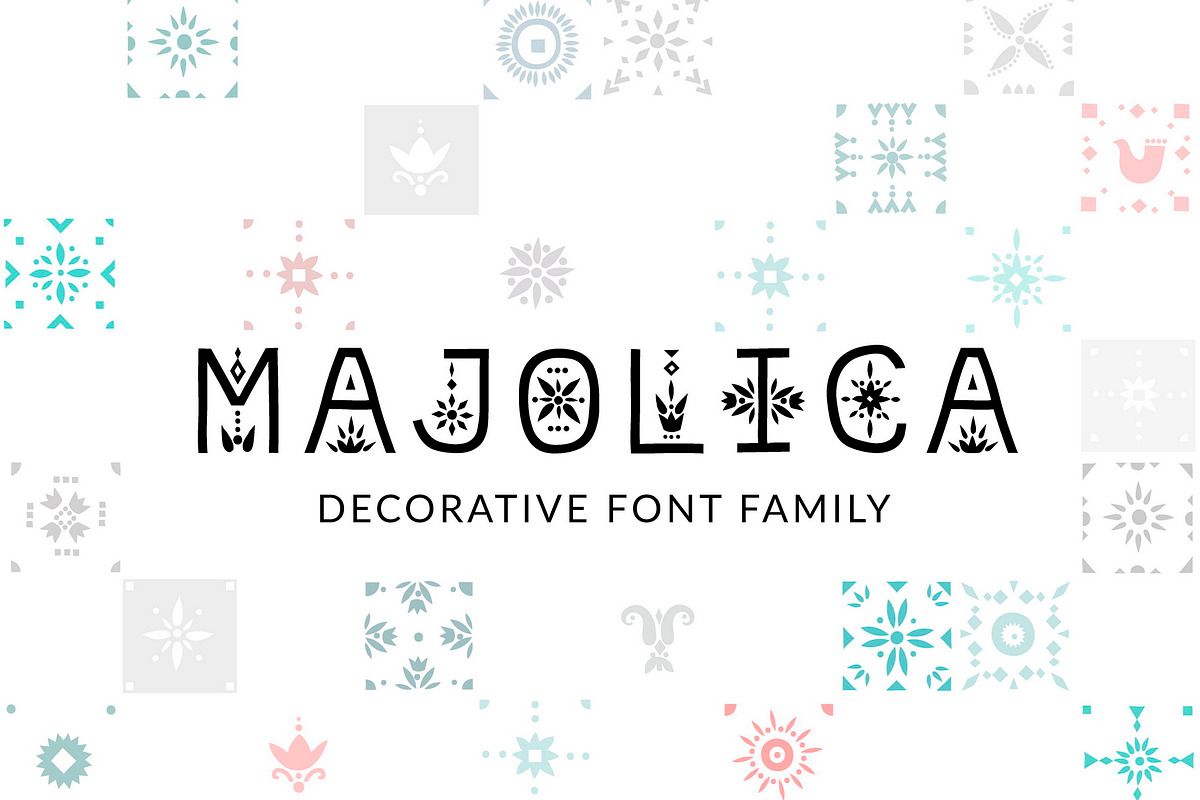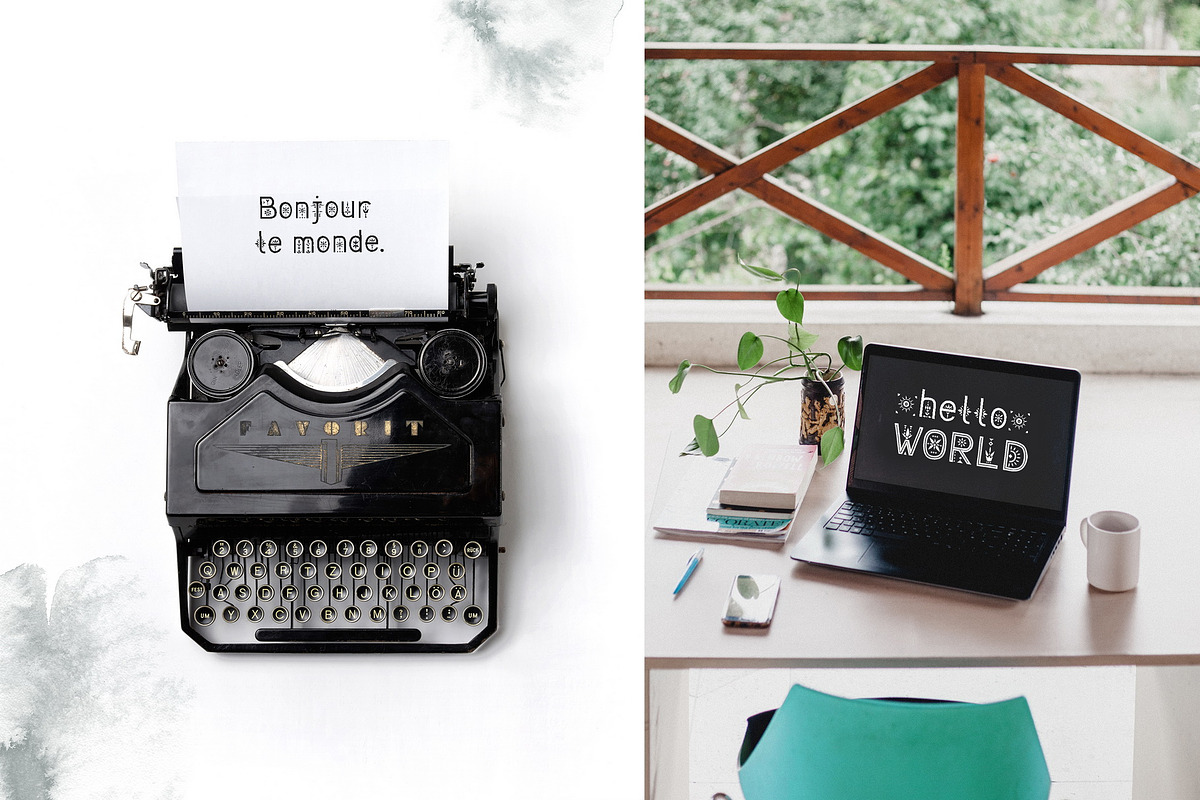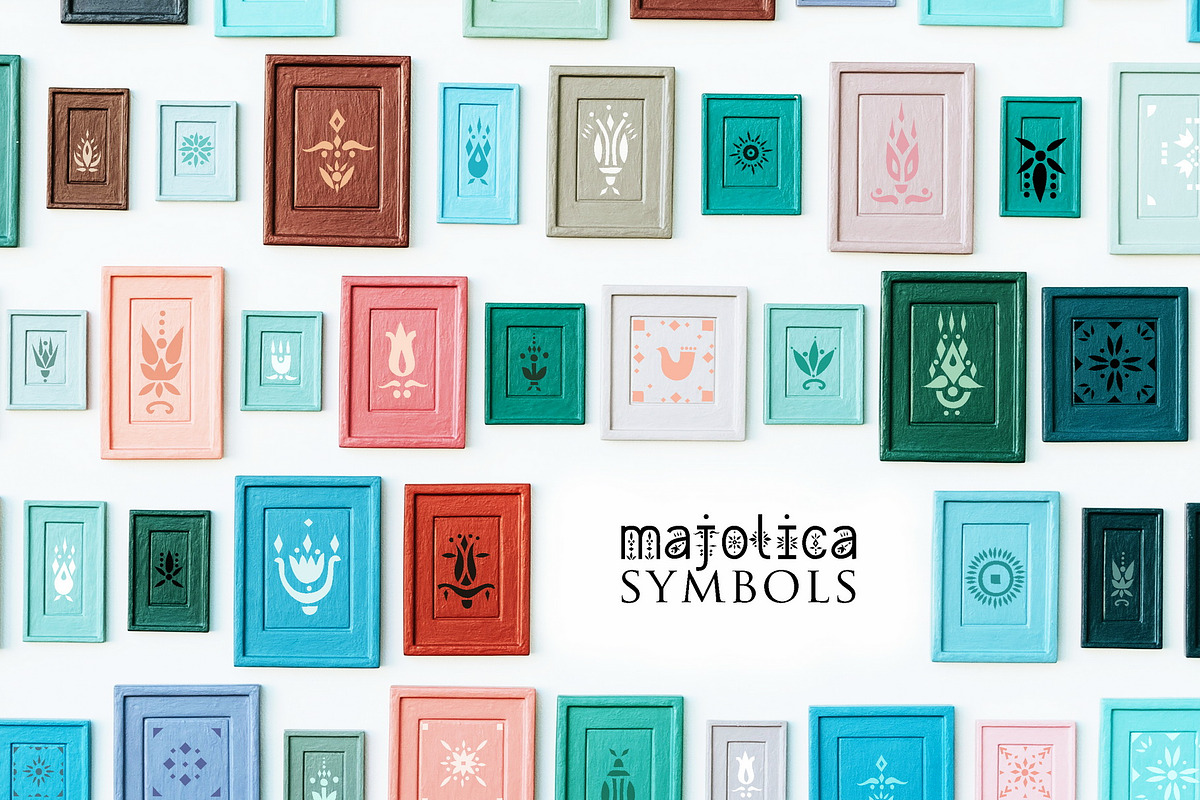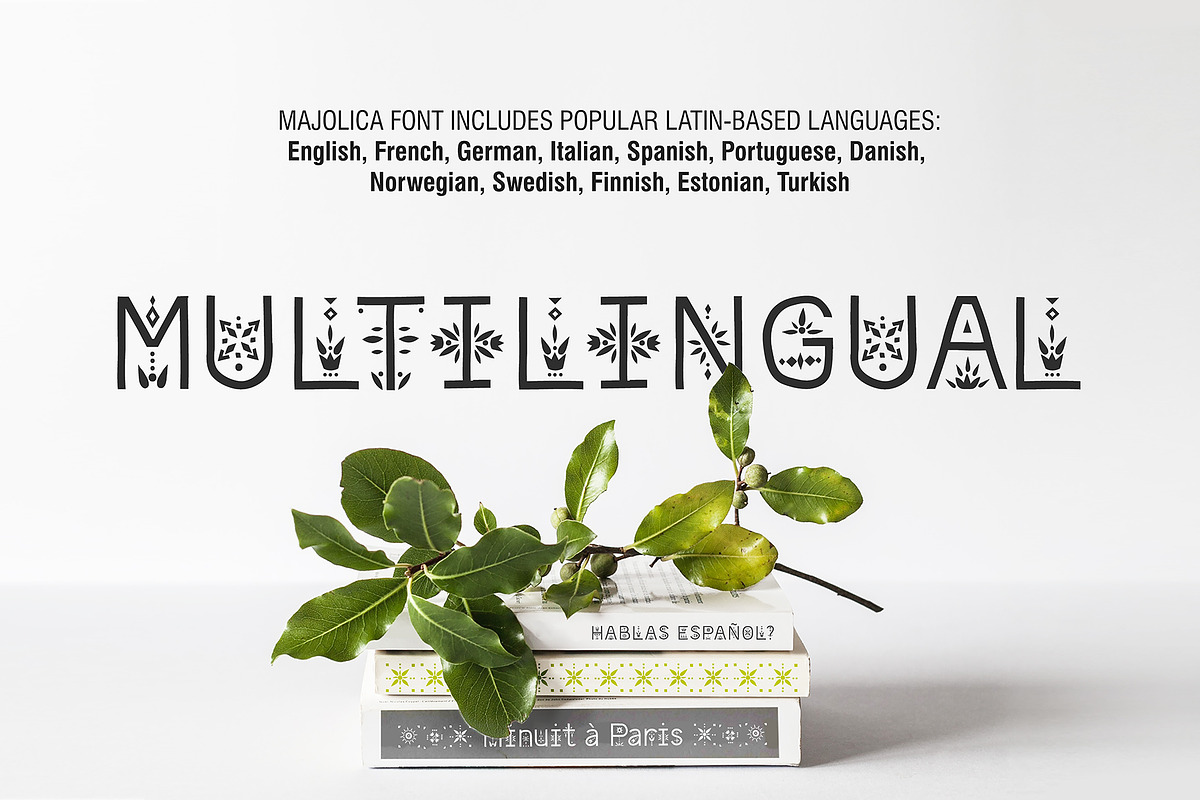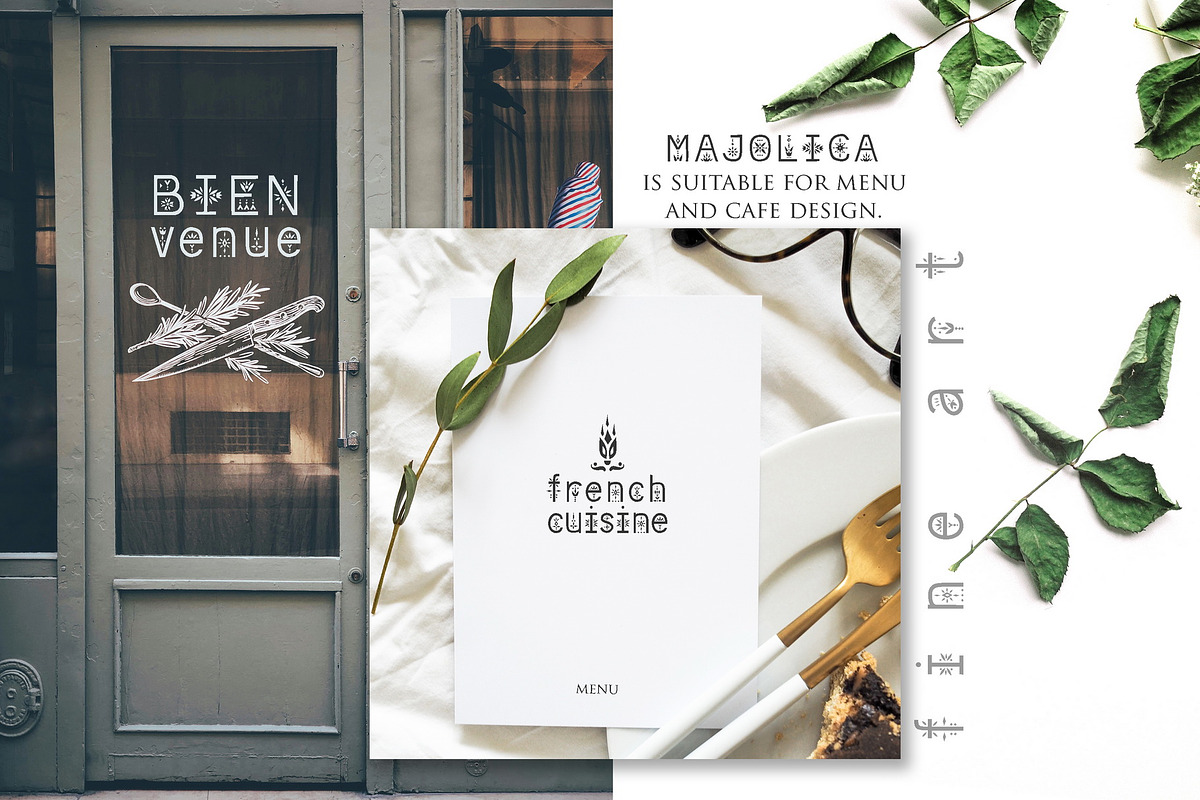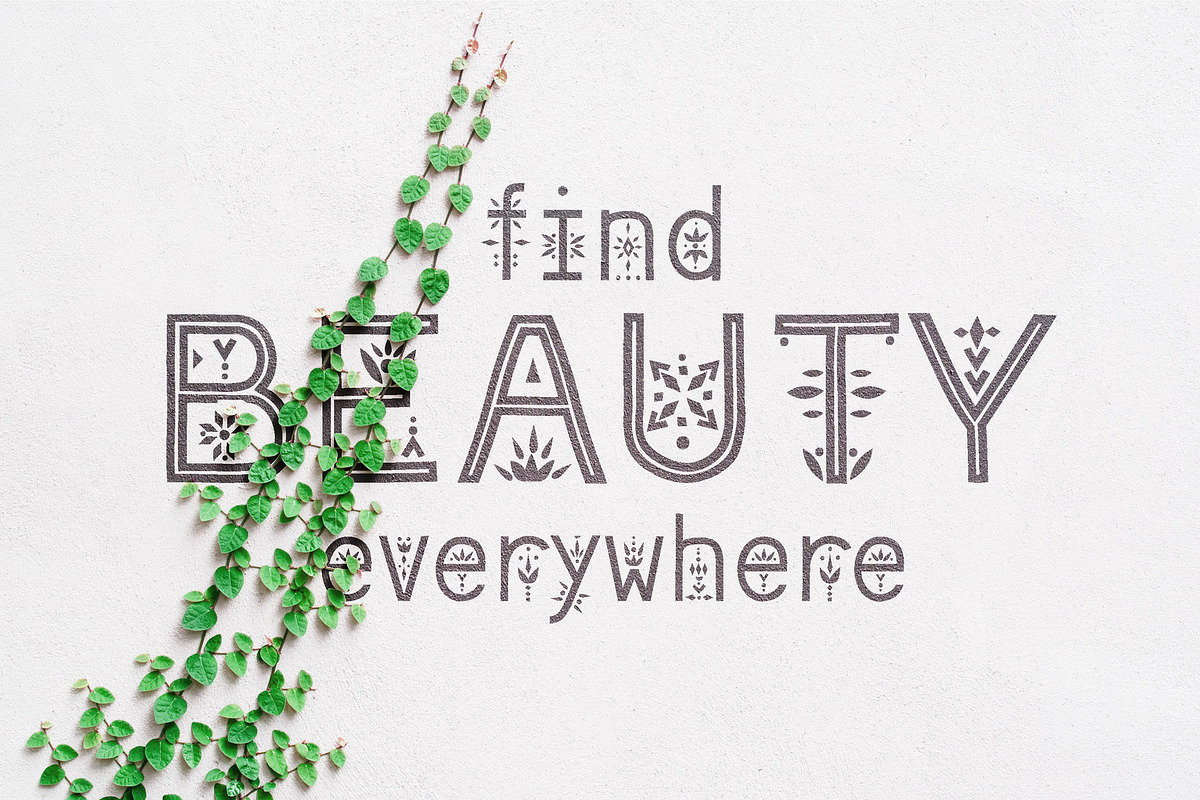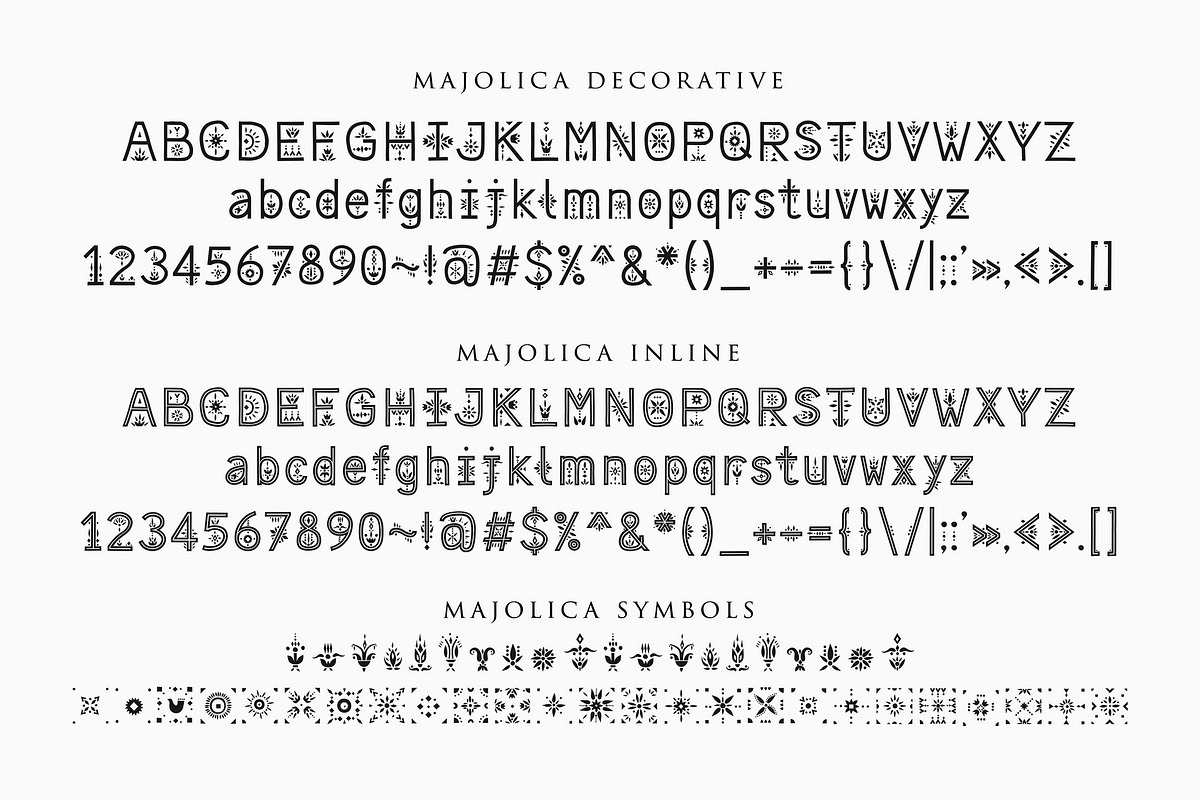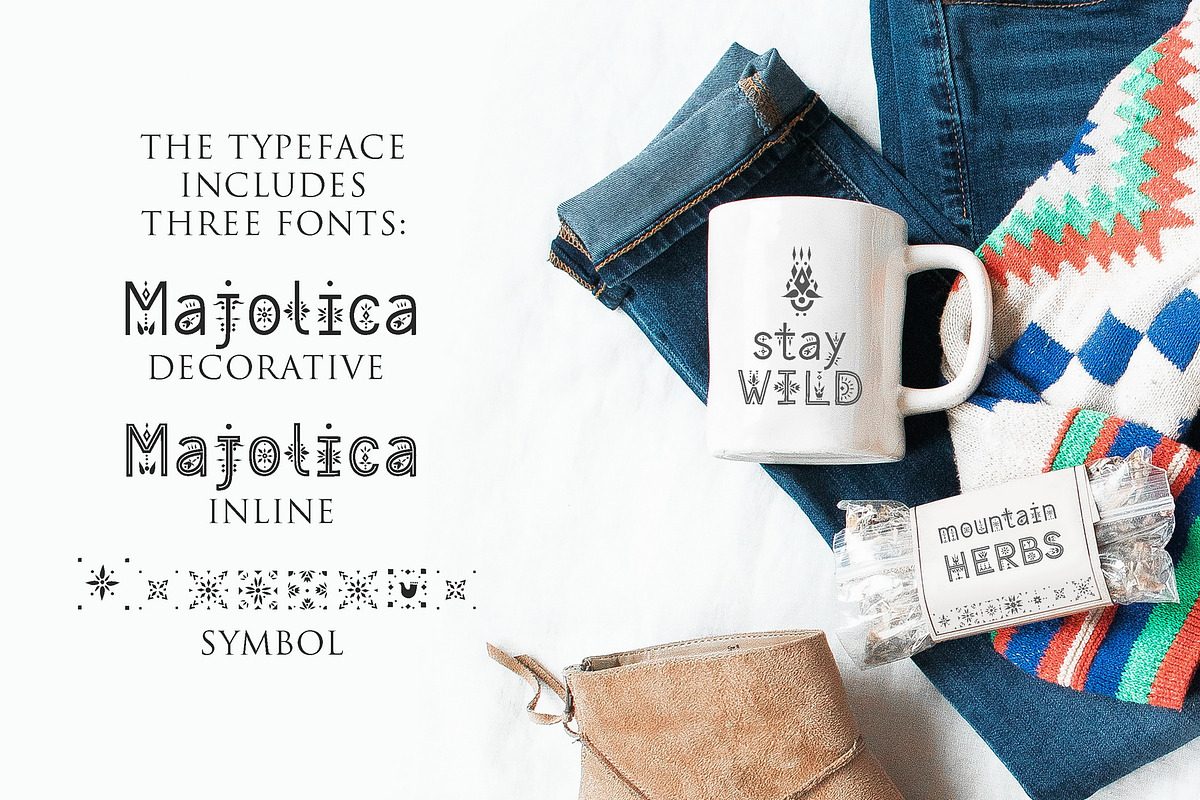
Majolica - Font Family
We would like to introduce our new font Majolica. We were inspired by Italian ceramics and floral patterns on square tiles. We decorated the empty space of letters with these patterns. That's how this font turned out!
Majolica typeface includes three fonts: Decorative, Inline, Symbol. You can mix and match them to get interesting design. The font is easy to use with other design programs or without any program.
The font is suitable for menu design, wedding invitations and cards, craft products branding and packaging (ceramics, floristics, soap making, natural cosmetics ect). You can create trendy lettering posters for your social media, photo overlays, printing clothes. Also use individual letters and symbols to create logos and monograms.
The font has extended language support, it includes English, French, German, Italian, Spanish, Portuguese, Danish, Norwegian, Swedish, Finnish, Estonian, Turkish. Need to know if your language is supported? Type any words in the text box below and see if all characters you need are there.